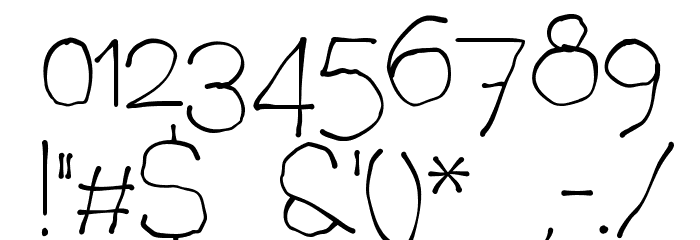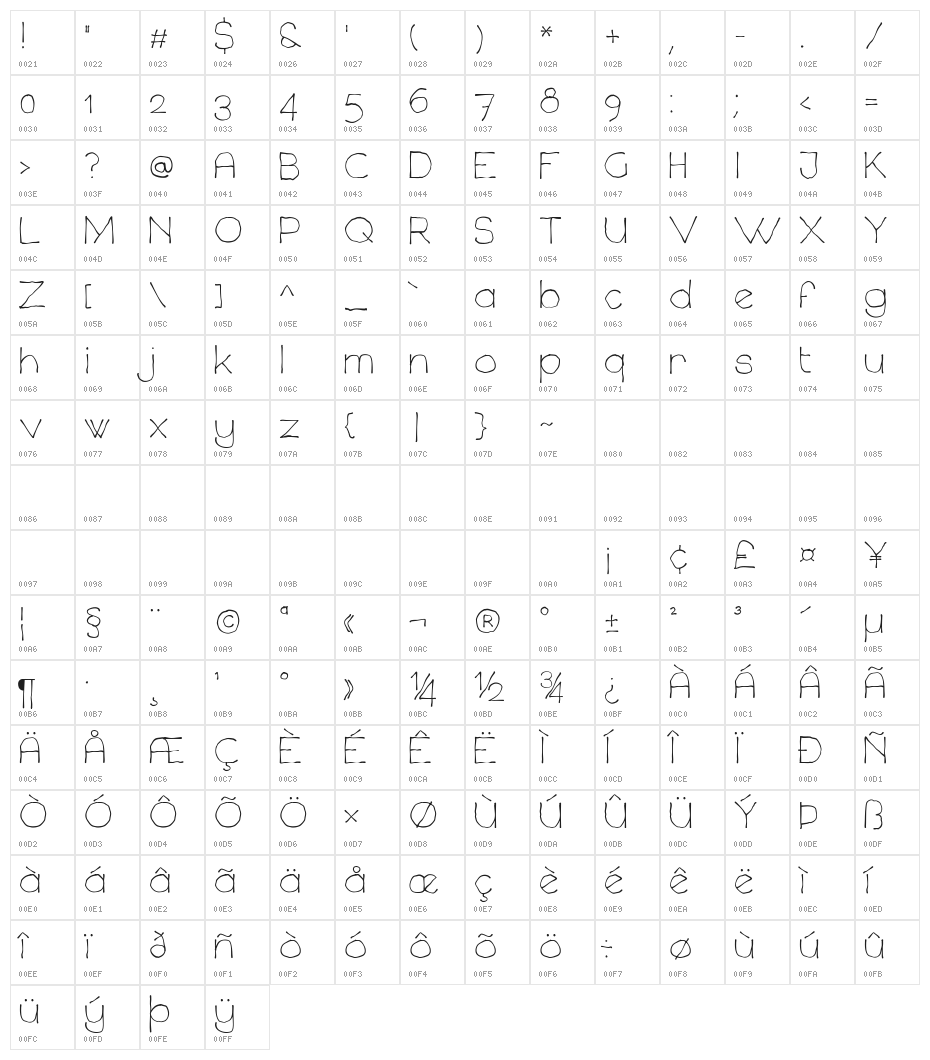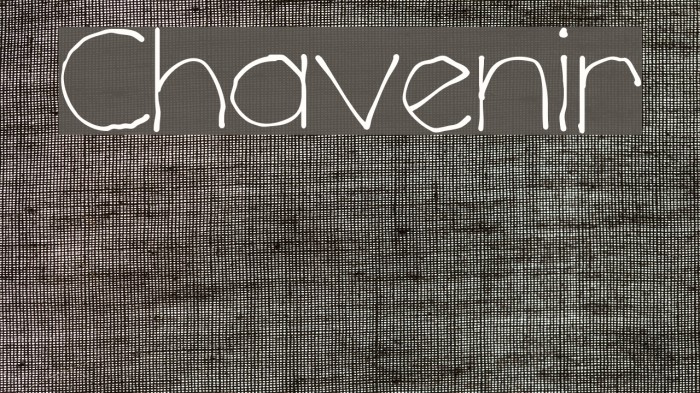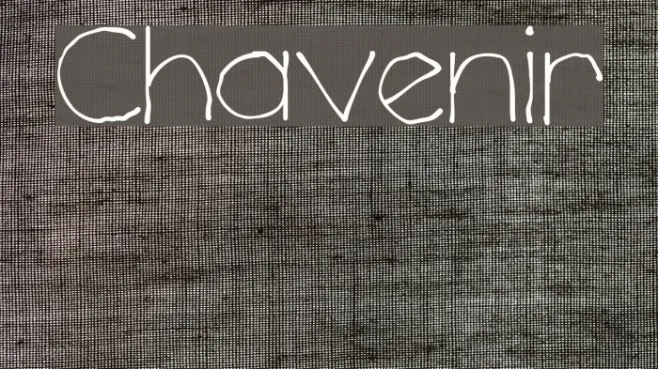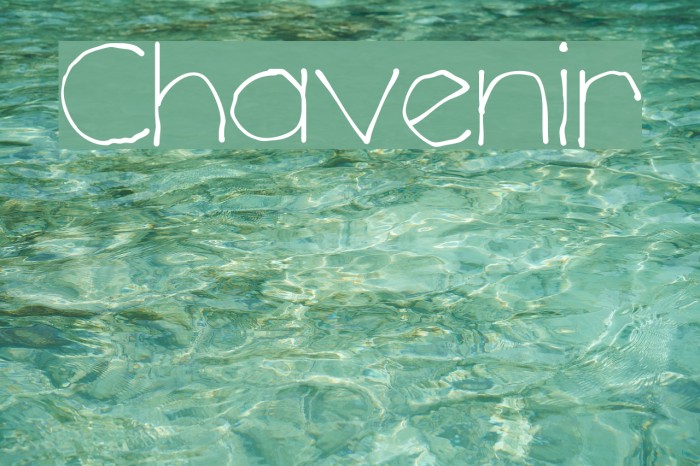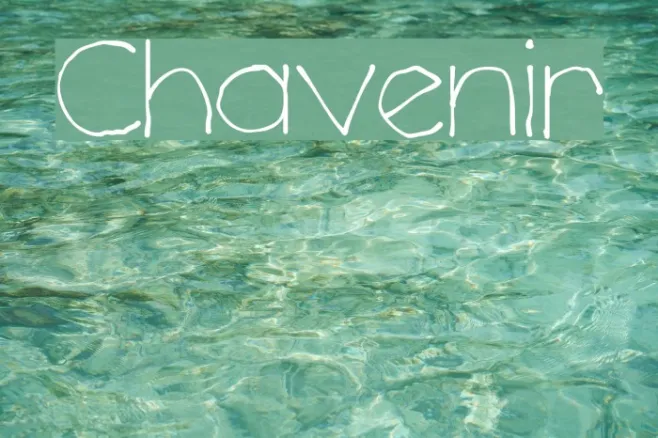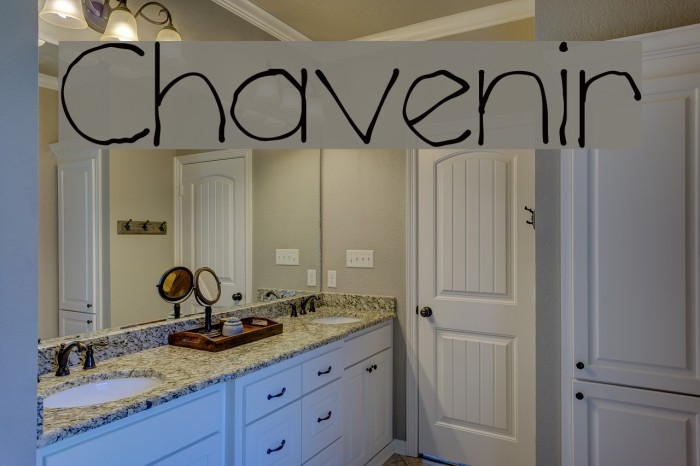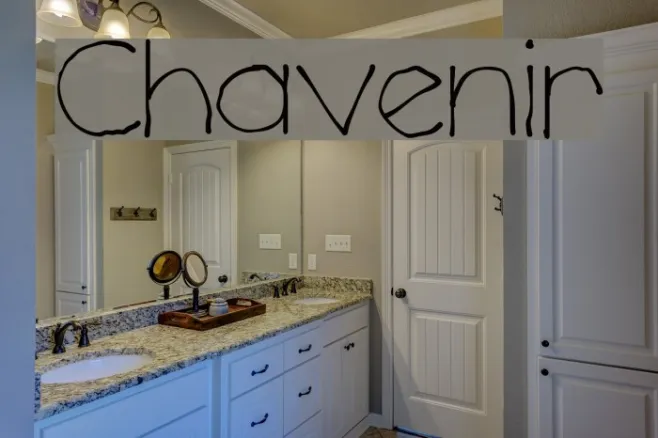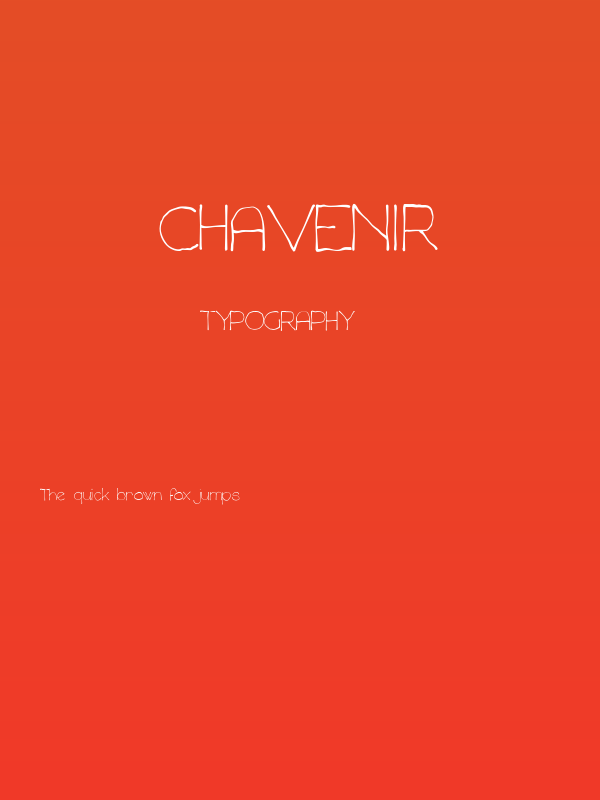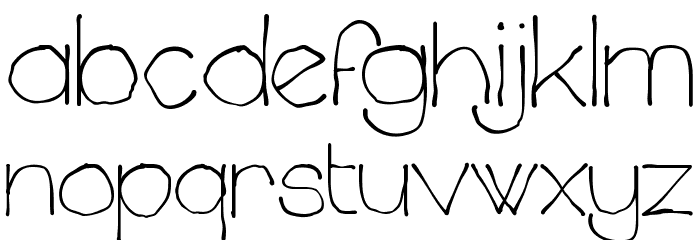
Chavenir Font
Chavenir Description
This font exhibits a unique, hand-drawn style with an organic and slightly irregular appearance. The characters are thin and elongated, giving them a whimsical and playful feel. The uppercase letters maintain a consistent height, while the lowercase letters have a more varied baseline, adding to the casual aesthetic. The numerals and special characters follow the same design principles, ensuring a cohesive look across all glyphs. The strokes are consistent in weight, with minimal contrast, emphasizing the informal and approachable nature of the design.
| Proposed Projects | Ideal for creative projects such as children's books, greeting cards, or playful branding materials. |